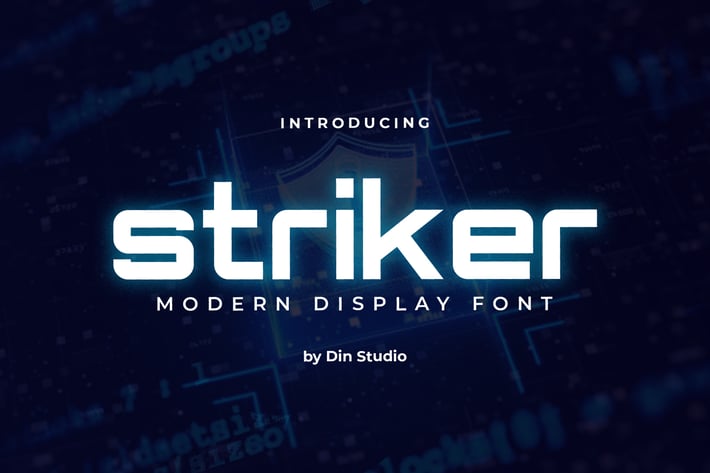
Striker-Modern Display Font
Striker is a modern display font. Made for any professional project branding. It is the best for logos, branding and quotes. Every letter has a unique and beautiful touch.